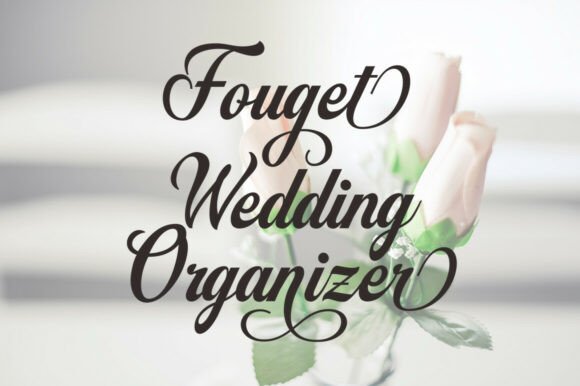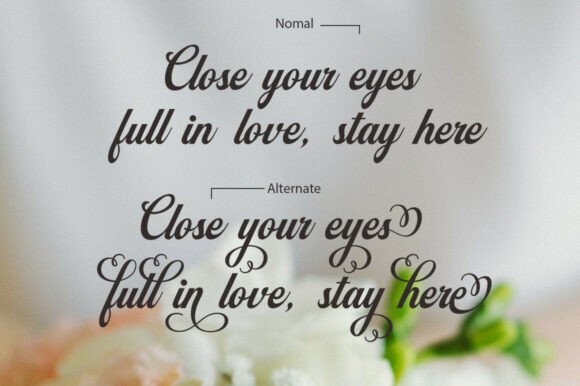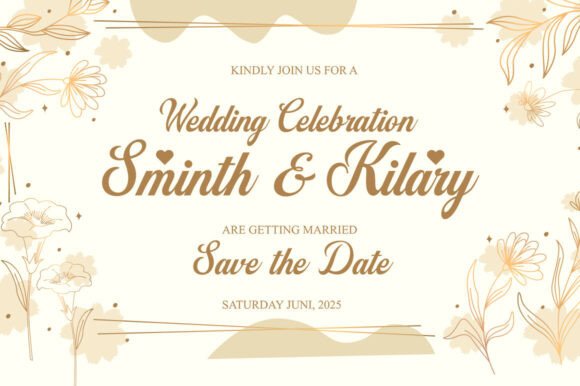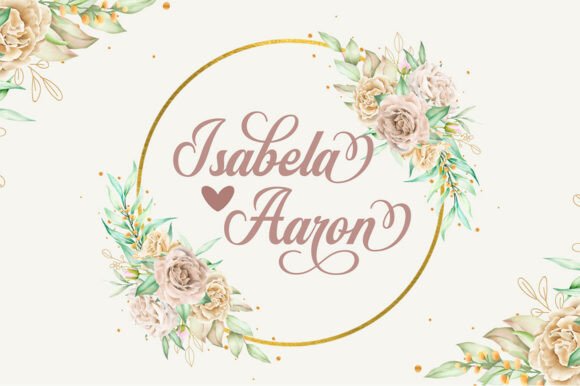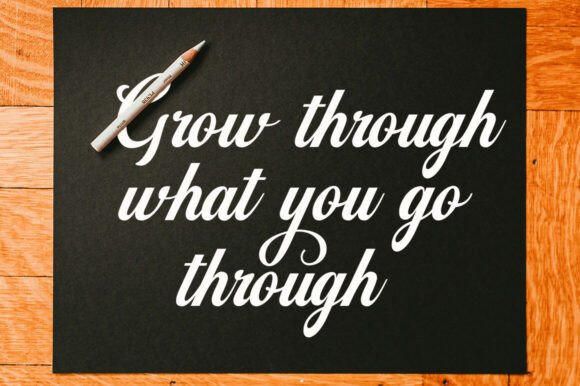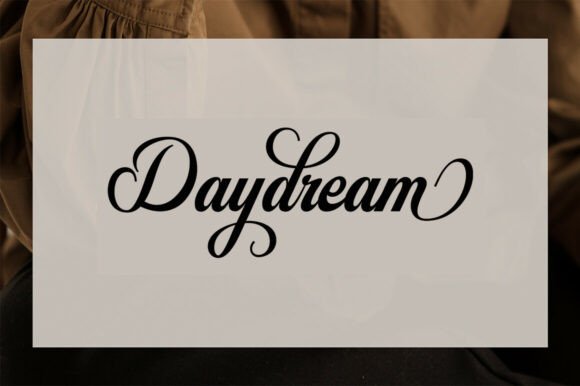
Introduction to Mombin Script Font
Remember the moment when you stumbled upon that perfect font that made your design come alive? It’s like finding a hidden treasure that elevates your creative project to the next level. For designers, the right font can be the difference between a good design and an exceptional one.
Among the numerous high-quality design resources available, one font stands out for its unique blend of elegance and handcrafted feel: the Mombin Script Font. This stylish font is designed to mimic the natural flow of handwriting, giving your designs a personal and artistic touch that’s hard to replicate with other fonts.
Whether you’re working on a branding project, creating wedding invitations, or developing packaging designs, the Mombin Script Font is a valuable addition to your design arsenal. Its smooth curves and stylish strokes create a sense of warmth and sophistication, making it perfect for a variety of creative projects.
Key Features of Mombin Script Font
- Mombin Script Font is a high-quality, elegant script font suitable for various creative projects.
- The font features a beautiful, handwritten style with unique characteristics, perfect for adding a personal touch to your design.
- Mombin Script Font comes in a transparent background, allowing for easy customization and versatility in design.
- The font size is scalable, with a recommended minimum size of 24 points for optimal readability.
- The font resolution is high, making it suitable for use in both digital and print designs, including posters, invitations, and more.
Honest Review: Mombin Script Font
I recently stumbled upon the Mombin Script Font and was excited to give it a try in my next creative project. Overall, I’m quite impressed with the quality and versatility of this design resource.
- The Mombin Script Font features a beautiful, elegant script design that’s perfect for adding a touch of sophistication to any project.
- The high quality of the font ensures that it looks great on both transparent background and solid-colored designs.
- The font may not be suitable for projects that require a bold, dramatic effect, as it’s more suited for elegant and refined designs.
- The free version of the font may not include as many styles and variations as the paid version.
Overall, I’m impressed with the Mombin Script Font and would definitely recommend it to designers looking for a high-quality, elegant script font for their next creative project.
Introduction to Mombin Script Font
The Mombin Script Font is a high-quality design resource ideal for creative projects. It features a beautiful, handwritten style that can add a touch of elegance to any design.
Tips for Getting the Most Out of Mombin Script Font
To get the most out of the Mombin Script Font, try using it in combination with other design elements, such as images and shapes, to create a visually appealing design. You can also experiment with different font sizes and colors to achieve the desired effect.
The Mombin Script Font is ideal for a variety of creative projects, including:
- Birthday party invitations and decorations
- Wedding and event planning
Alternatives to Mombin Script Font
1. Carolyna Pro
Carolyna Pro is a high-quality, elegant script font perfect for designers looking for a sophisticated design resource. It features a transparent background, making it ideal for creative projects where subtle textures are desired. This font is ideal for use in invitations, wedding stationery, and other high-end design projects. Compared to Mombin Script Font, Carolyna Pro has a more refined and polished look, making it a great choice for designers seeking a premium feel.
Pacifico is a beautiful, handwritten script font that is perfect for designers looking to add a touch of whimsy to their creative project. This font features a free download option, making it easily accessible to designers of all levels. Pacifico is ideal for use in branding, packaging, and advertising design projects. Compared to Mombin Script Font, Pacifico has a more relaxed and casual feel, making it a great choice for designers seeking a friendly and approachable look.